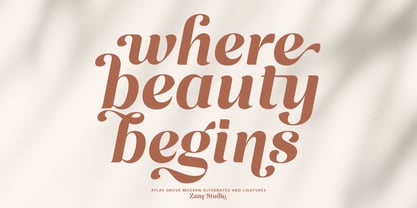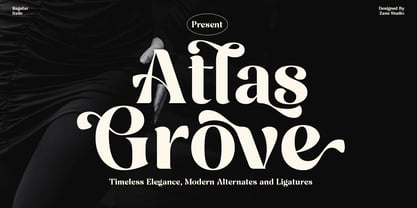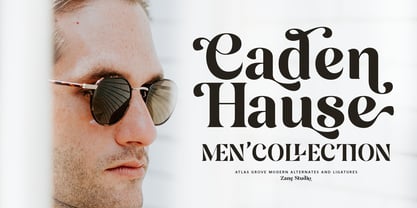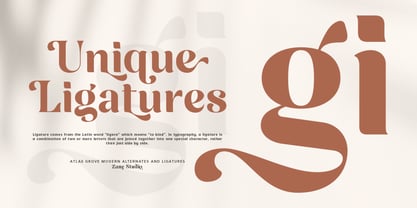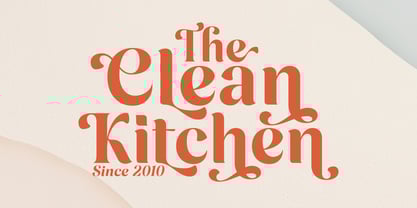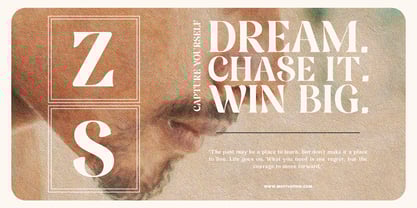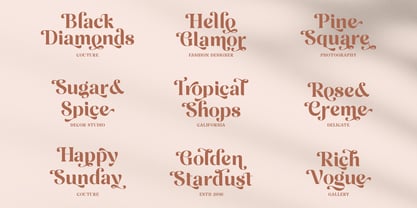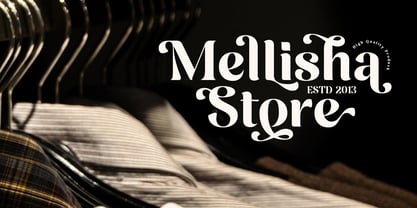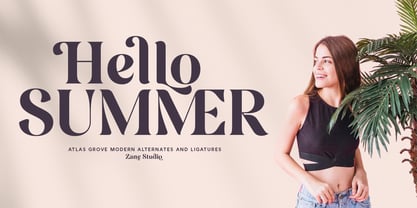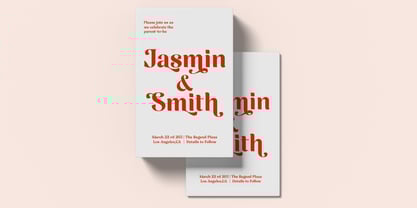
Atlas Grove
by Zane Studio
The Atlas Grove Font Family was designed by Mur Zani and published by Zane Studio. Atlas Grove contains 2 styles and family package options.
Atlas Grove is an elegant display serif font with a modern twist. Featuring high contrast, unique character shapes, and decorative ligatures and alternates, this font is suitable for branding, editorial, invitations, and premium packaging design.
Available in two styles: Regular and Italic, providing flexibility for expressive and classy design needs.
Features:
2 Styles: Regular & Italic
Special alternates & ligatures
Multilingual support (Latin)
Designers: Mur Zani
Publisher: Zane Studio
Foundry: Zane Studio
Design Owner: Zane Studio